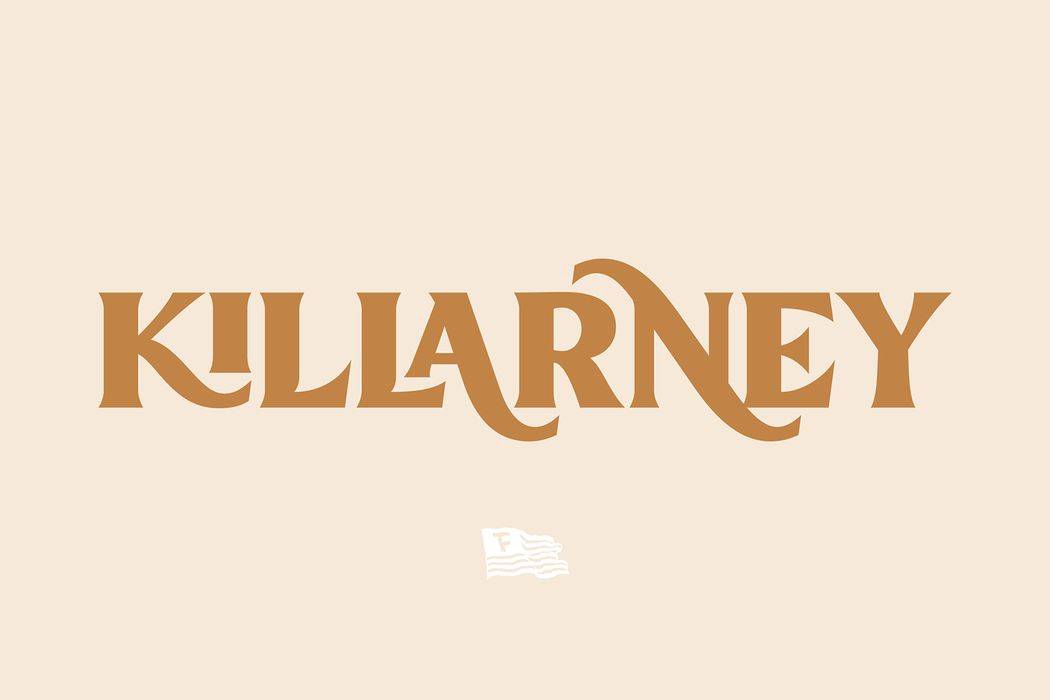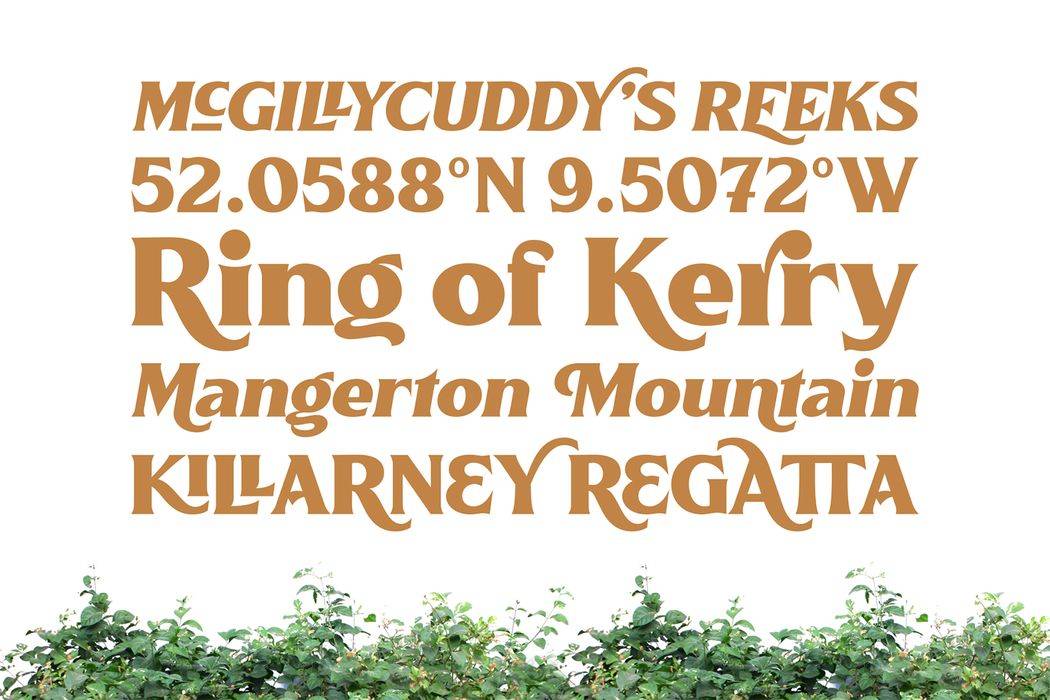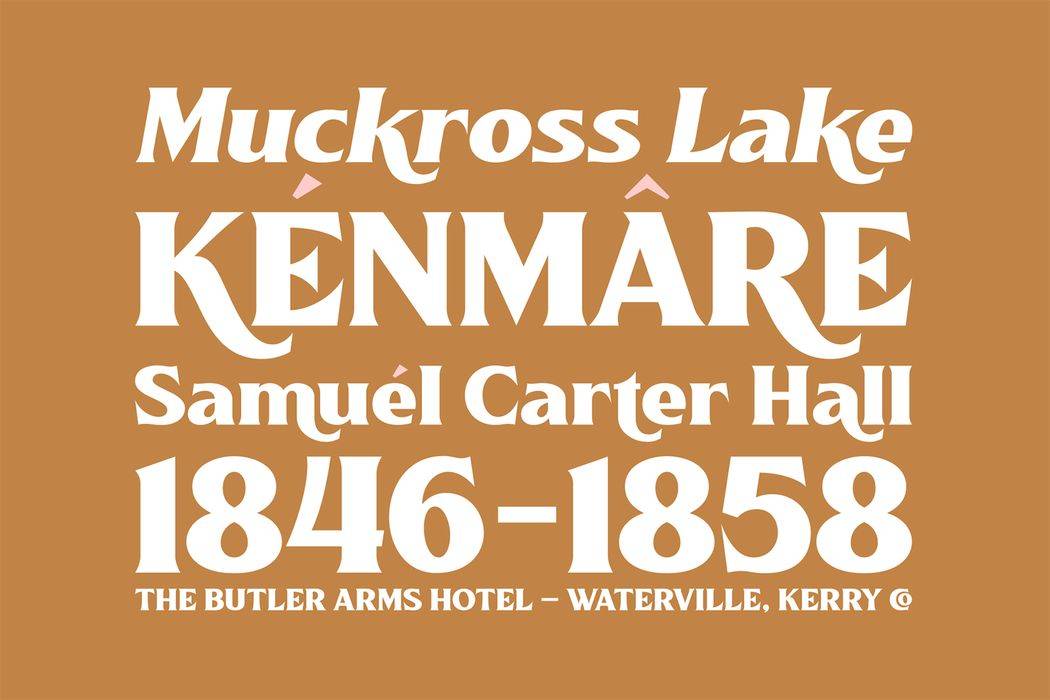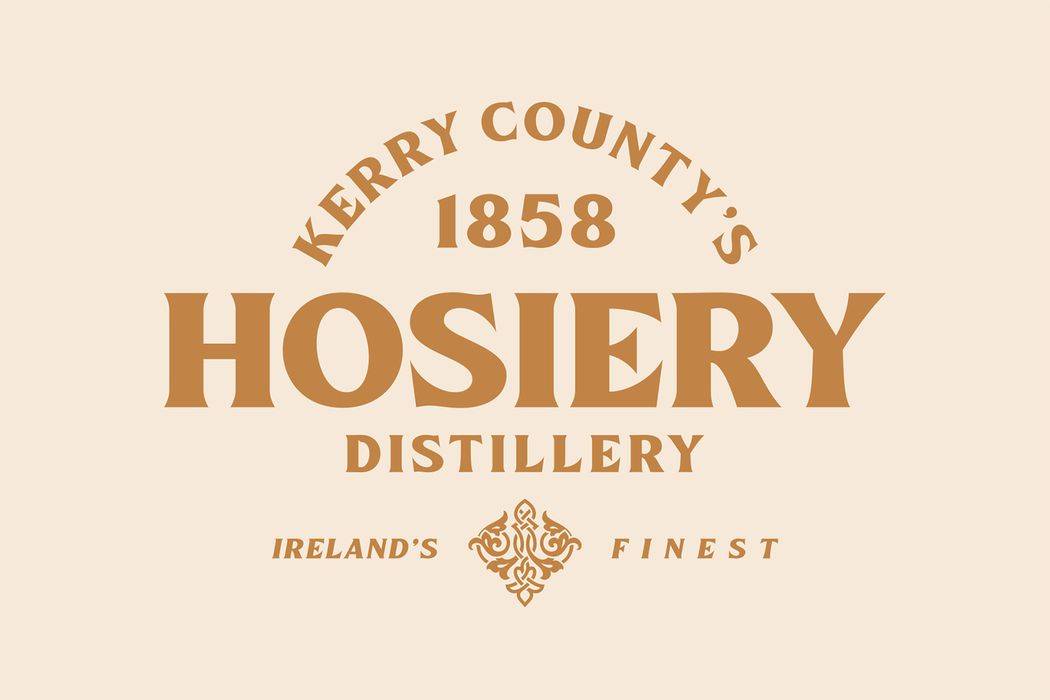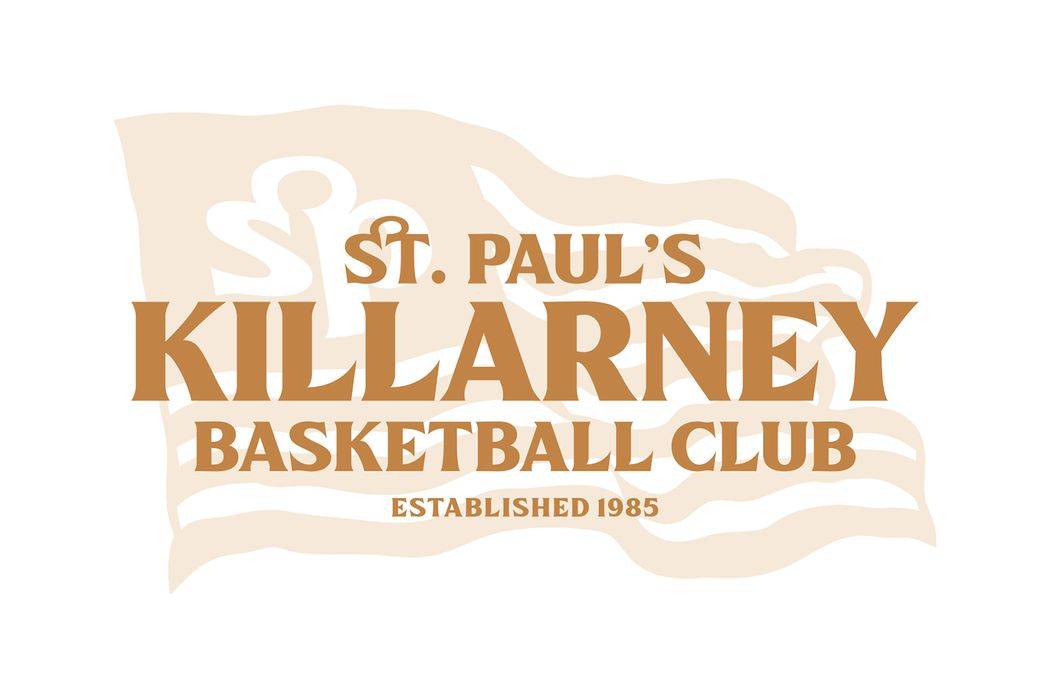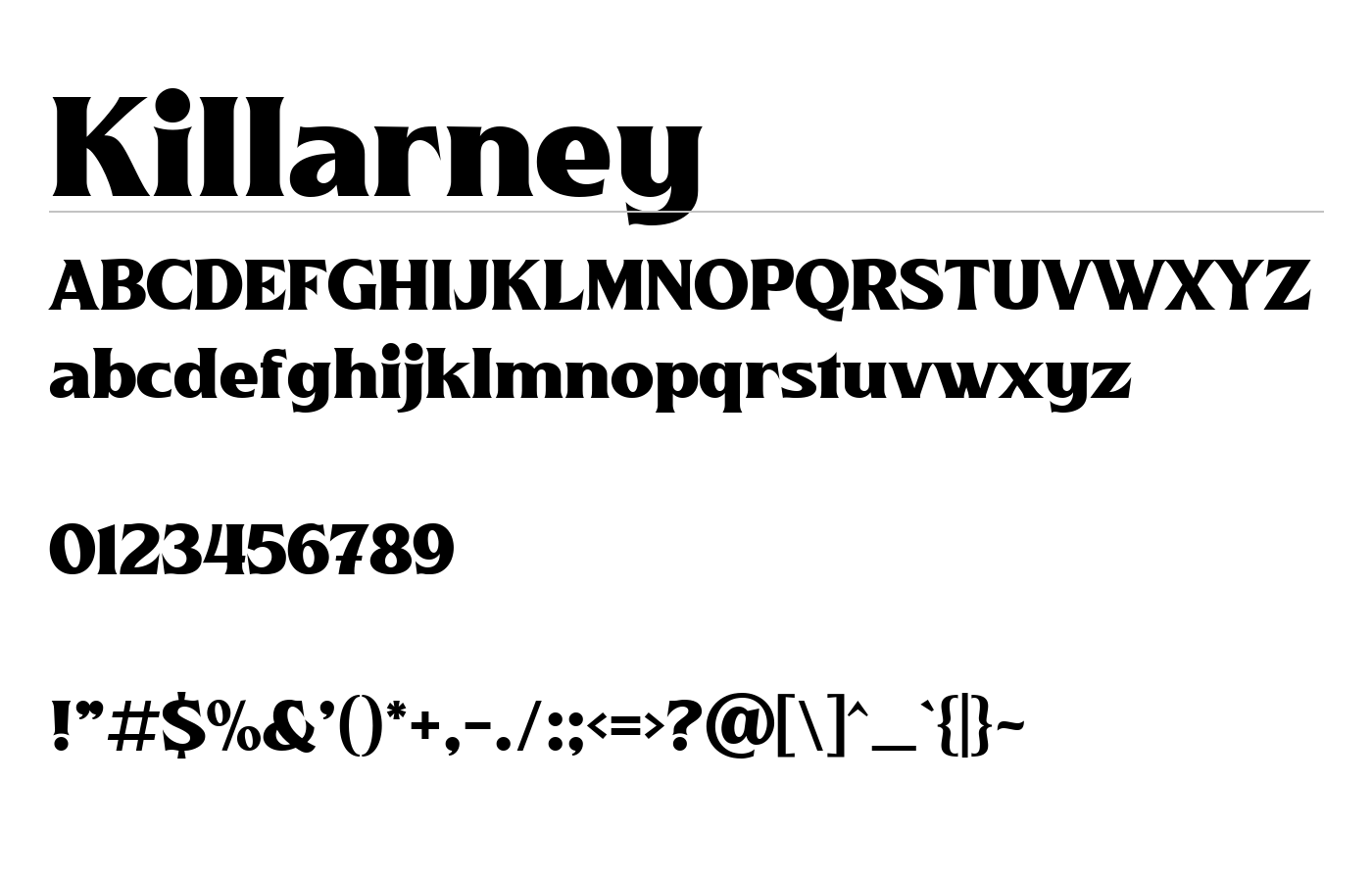
Killarney is a bold serif font with a strong presence, featuring thick strokes and sharp, bracketed serifs that create a confident and classic look. Its slightly condensed letterforms and moderate contrast give it a sturdy yet elegant feel, making it well suited for headlines, branding, and editorial uses where a vintage yet refined style is desired. This font communicates strength and tradition while maintaining readability and character.
Killarney Font
About Killarney Font